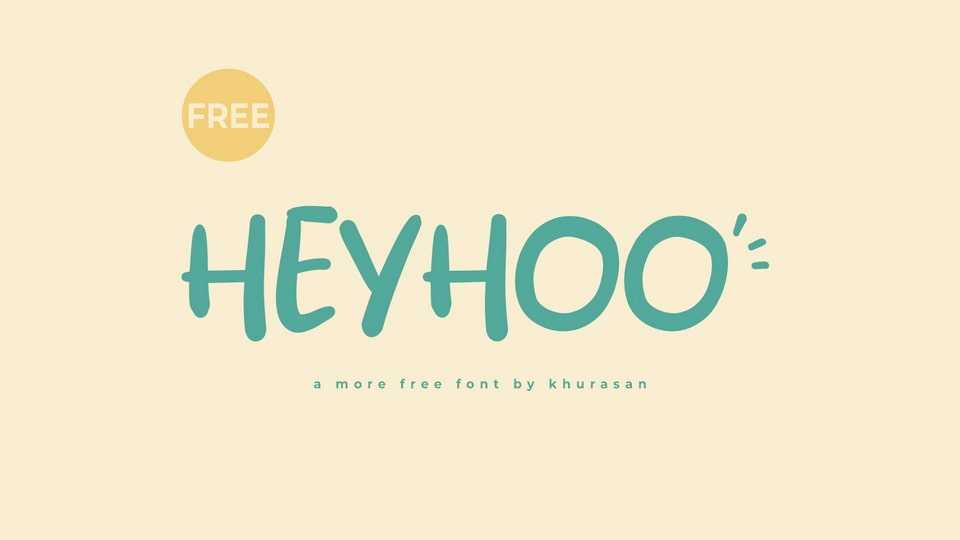
Download Heyhoo font, a playful and quirky hand-lettered typeface that dances with a bouncy rhythm, bringing a whimsical charm to your designs. The delightful irregularities and playful details add character, making Heyhoo font an ideal choice for designs that seek a touch of genuine, hand-lettered quirkiness.